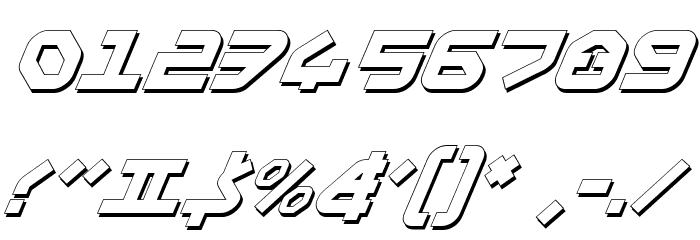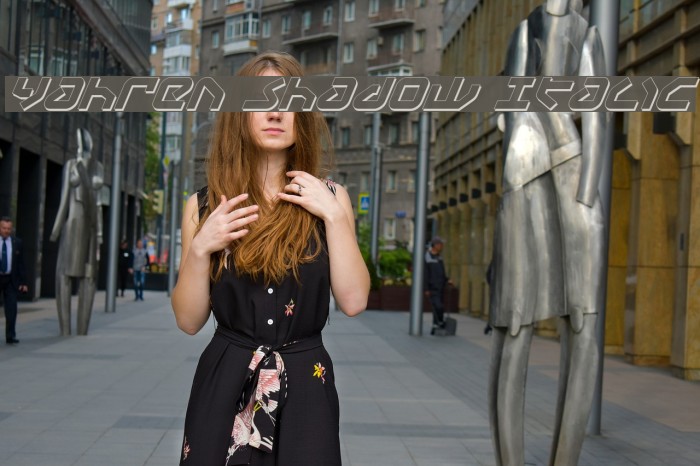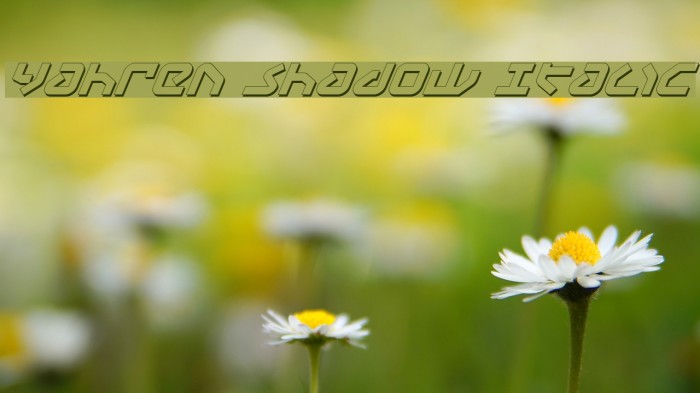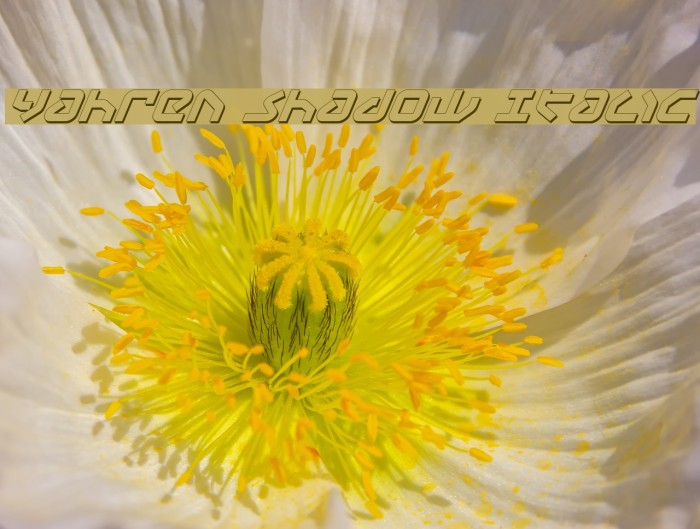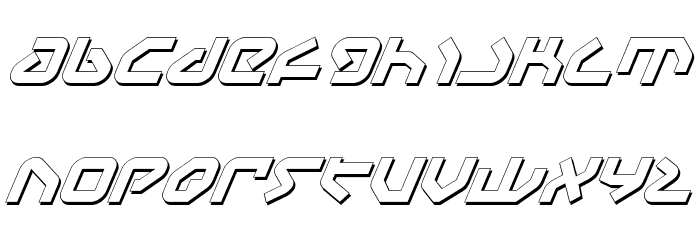
Yahren Shadow Italic Font
Yahren Shadow Italic Description
This font features a bold and dynamic style with a distinct shadow effect that gives it a three-dimensional appearance. The characters are italicized, adding a sense of motion and energy. Each letter is outlined, enhancing the shadow effect and providing a striking contrast between the filled and unfilled spaces. The geometric design of the letters, with sharp angles and clean lines, contributes to a modern and futuristic aesthetic. The font maintains consistency across uppercase, lowercase, numbers, and special characters, ensuring a cohesive look. The spacing between characters is balanced, allowing for readability while maintaining its unique style.
| Proposed Projects | Ideal for futuristic branding, tech-related projects, video game titles, and dynamic posters. |